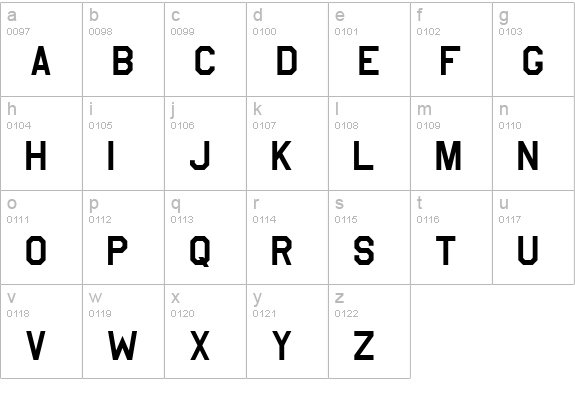
USAAF_Stencil Font Details
USAAF_Stencil font is a bold and striking typeface that captures the essence of vintage military stencils. Inspired by the typography used by the United States Army Air Forces during World War II, this font is perfect for adding a touch of nostalgia and authenticity to your designs. With its strong, clean lines and distinct letterforms, USAAF_Stencil font commands attention and makes a powerful statement. Whether you're creating posters, logos, or signage, this font adds a sense of strength and authority to any project. One of the best things about USAAF_Stencil font is that it is available for free download at FontsMarket.com. This means that you can easily access this high-quality font without any cost. Simply visit FontsMarket.com and start using this font to elevate your designs. The versatility of USAAF_Stencil font allows it to be used in various design contexts. Its bold and rugged appearance makes it perfect for military-themed projects, while its vintage charm adds a touch of nostalgia to any retro-inspired design. Whether you're working on a war documentary, a vintage-inspired branding project, or a military-themed website, USAAF_Stencil font is a powerful and versatile choice. Furthermore, USAAF_Stencil font is easily legible, even at smaller sizes, making it suitable for both print and digital mediums. Its timeless design ensures that it will continue to make an impact for years to come. In conclusion, USAAF_Stencil font is a must-have for designers and typographers who want to add a touch of vintage military style to their projects. With its bold and distinct letterforms, this font is sure to make a statement. And with its availability for free download at FontsMarket.com, there's no reason not to give this font a try. So go ahead, download USAAF_Stencil font today and let your designs stand out with its powerful presence.